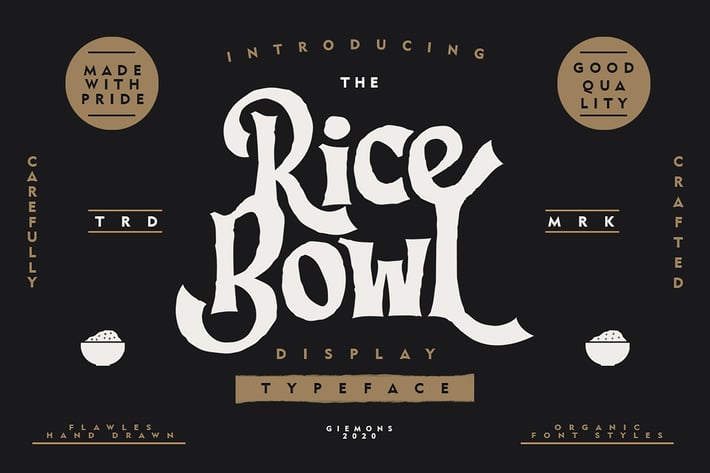
Ricebowl Typeface
a RICEBOWL Typeface is Display Font, Unique font and Rough. Can make it easier to convey the message in your design. Use for awesome display, Logo, labeling, clothing, movie sceen, poster, movie title, gigs, album covers, logos, and much more.
Lowercase Stylistic Alternate